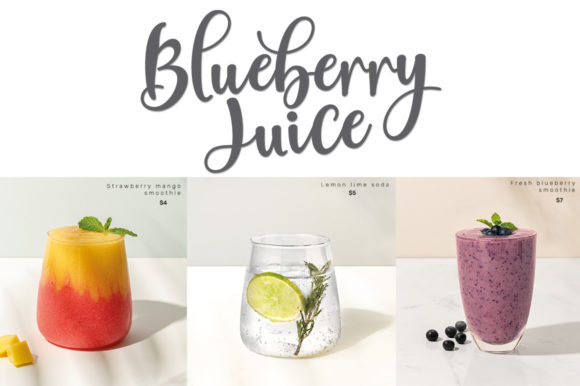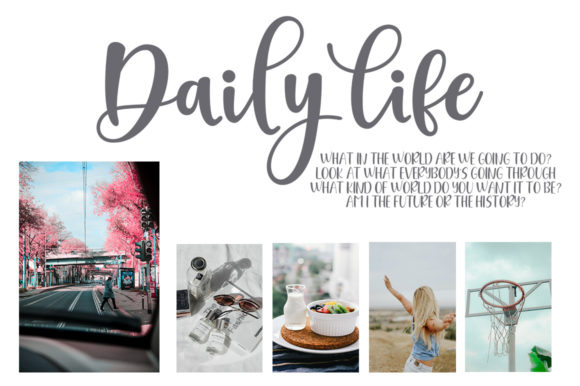
About Breathing Austria Duo Font
Breathing Austria Duo is a stunning and comprehensive duo font (script and sans serif), ideal for giving your projects a branded but friendly feel. The two included styles can be combined together perfectly but are also beautiful on their own.